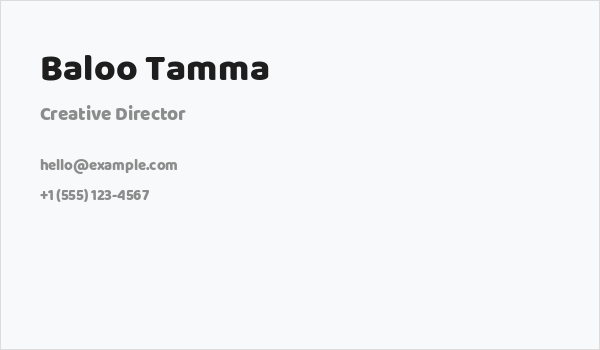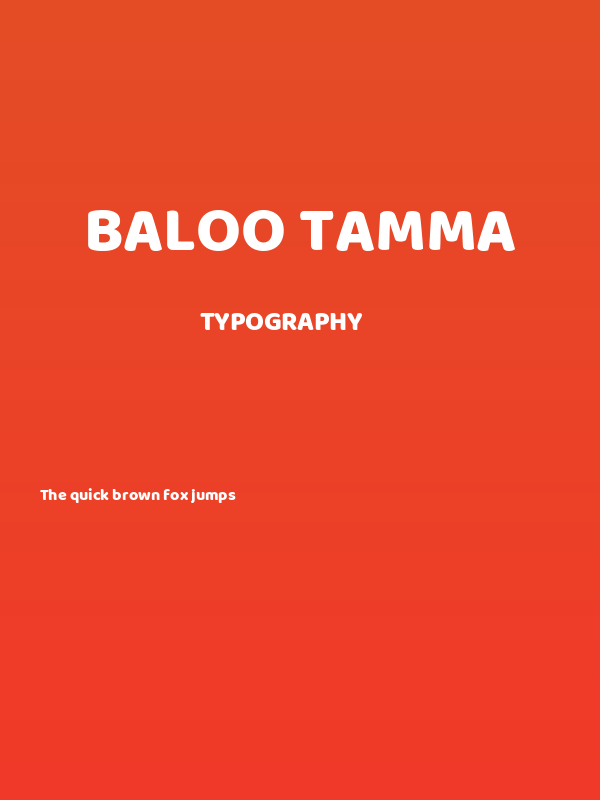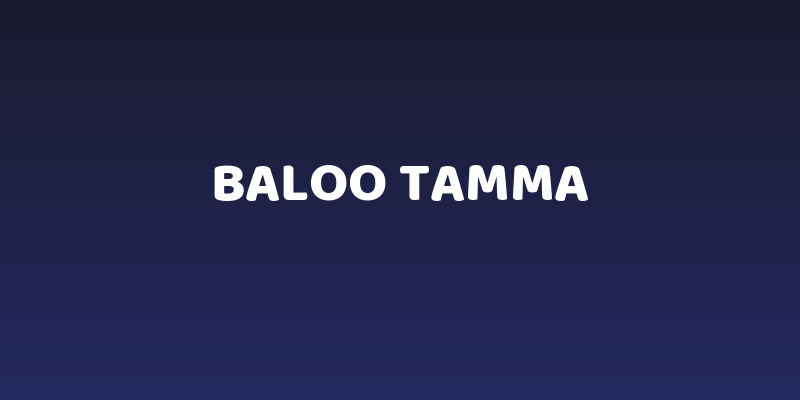
Baloo Tamma Font
Baloo Tamma Description
This font features a playful and rounded design, characterized by its bold and friendly appearance. The letters are thick and have a uniform stroke width, giving it a consistent and cohesive look. The rounded edges and smooth curves contribute to its approachable and informal style, making it ideal for projects that require a touch of whimsy and warmth. The font maintains a balanced structure, ensuring readability while adding a unique personality to the text. Its design is versatile, suitable for both digital and print media, and can be used effectively in various contexts where a casual and inviting tone is desired.
| Proposed Projects | Ideal for children's books, playful branding, casual invitations, and social media graphics. |